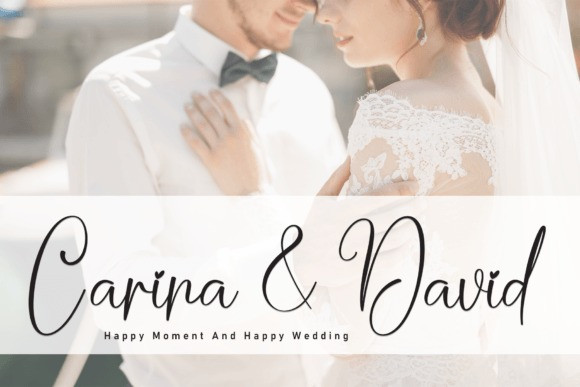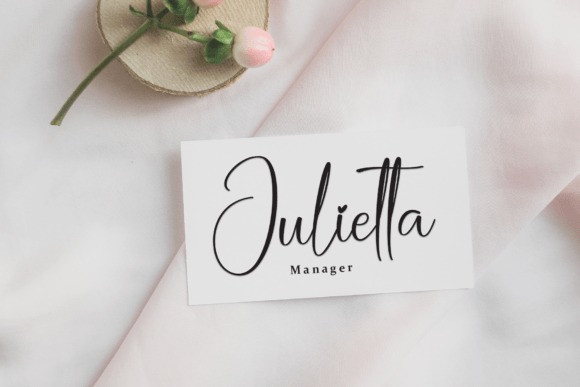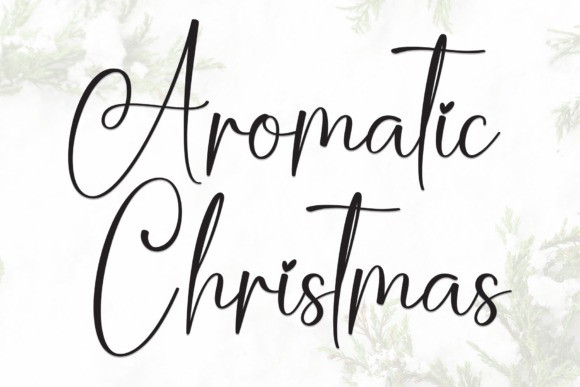
Aromatic Christmas Font
Aromatic Christmas Font is a charming handwritten font that adds a touch of love and warmth to your festive messages. With delicate hearts adorning the tops of the letters “i” and “j,” this font brings a sweet and whimsical feel to your holiday designs. Perfect for adding a cozy and festive touch to your Christmas cards, invitations, and seasonal projects.